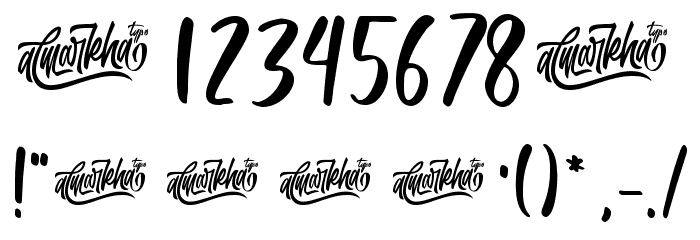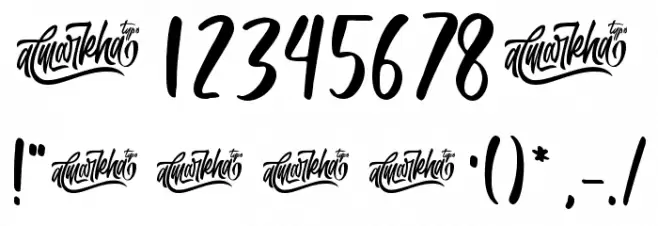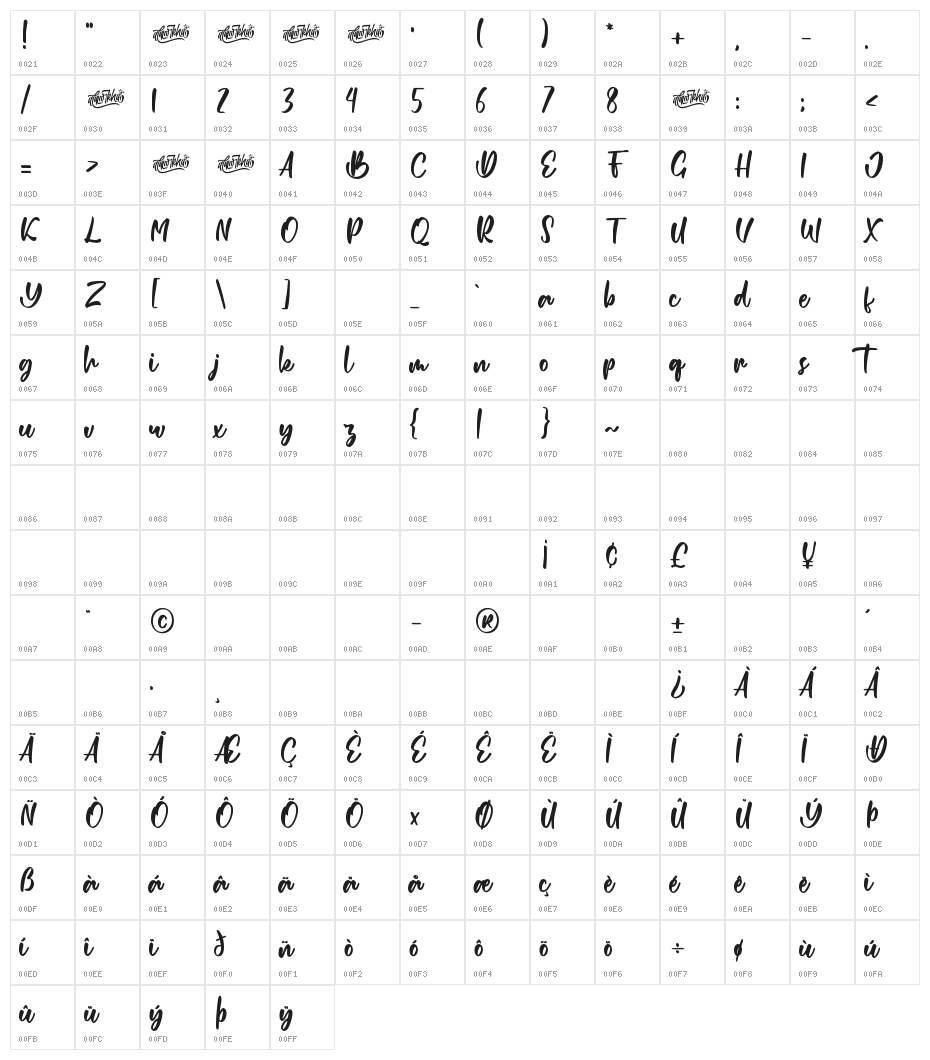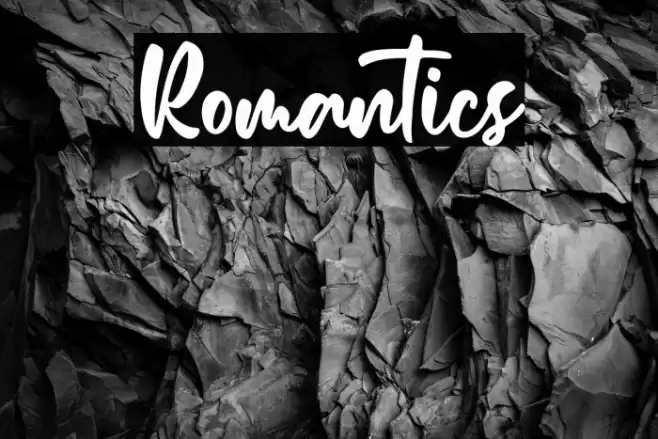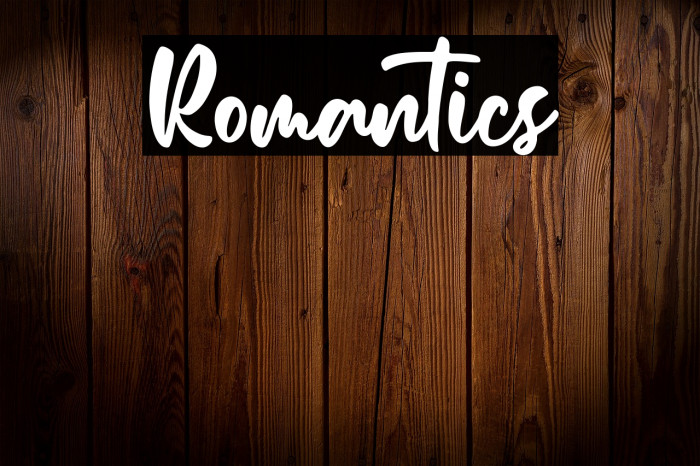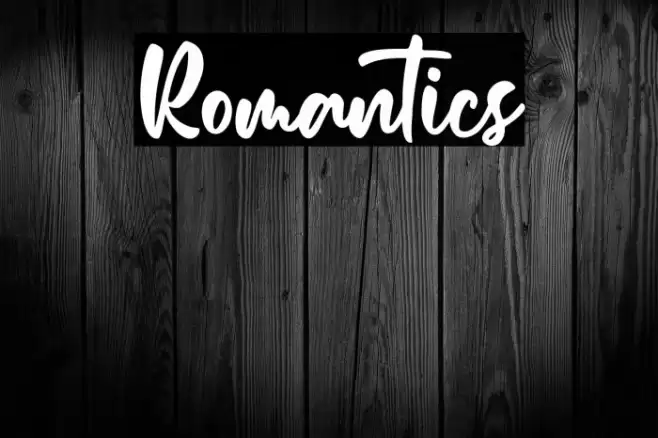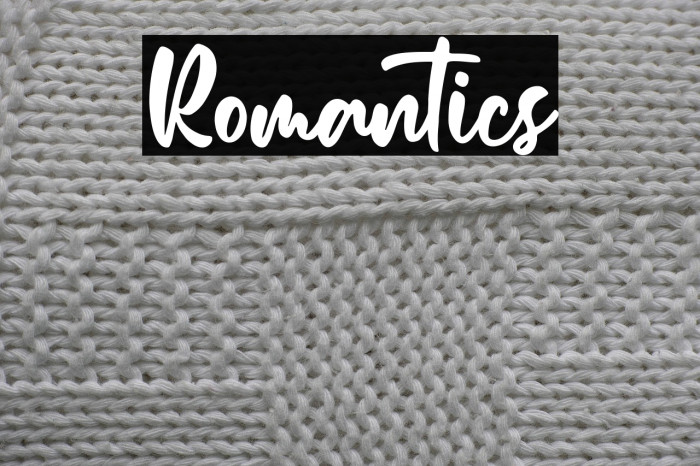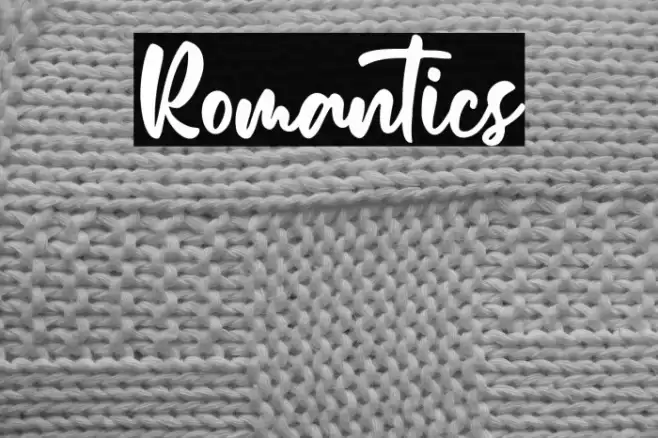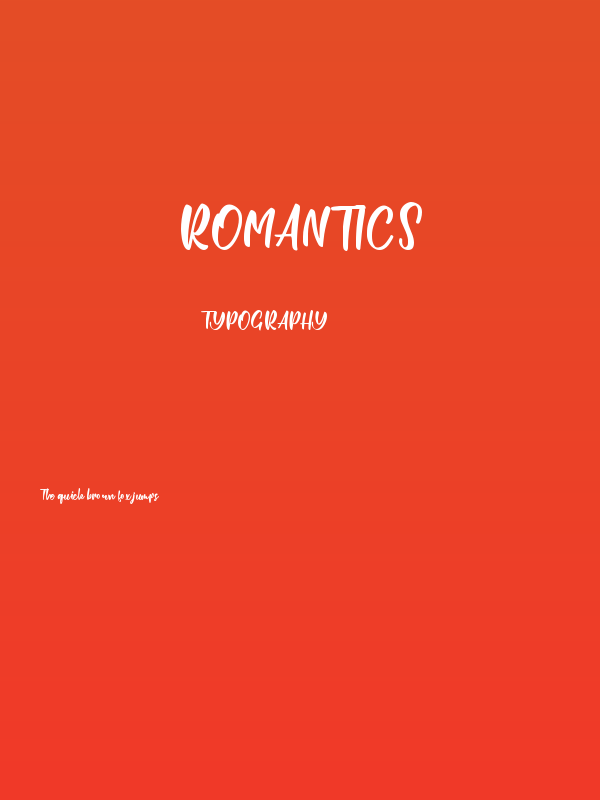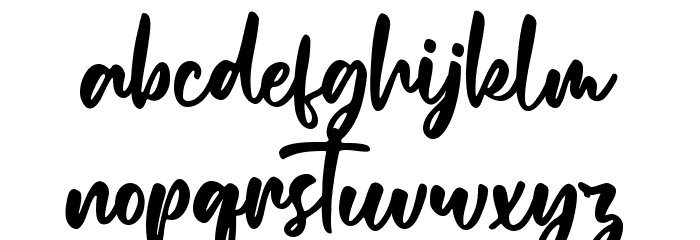
Romantics Font
Romantics Description
This font exudes a lively and energetic vibe with its bold, flowing script style. The uppercase letters are characterized by their sweeping curves and dynamic strokes, giving them a sense of movement and flair. The lowercase letters maintain a cohesive look, with smooth connections and a slightly playful touch. Numbers are bold and consistent with the overall style, ensuring readability while maintaining the font's unique character. Special characters are thoughtfully designed to match the font's aesthetic, adding versatility for various uses. This font is perfect for projects that require a personal, handwritten feel, such as invitations, branding, and creative designs.
| Use Case | Logos, Headlines, Creative designs |
| Proposed Projects | Ideal for invitations, branding, creative designs, and any project needing a personal touch. |